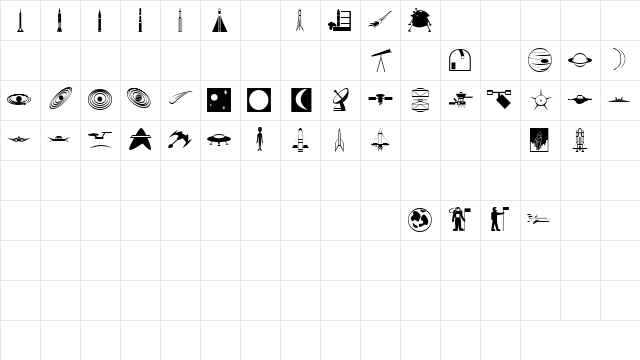
DexisDingbatsEightSSi Regular Free Font
DexisDingbatsEightSSi Regular
Design Context for DexisDingbatsEightSSi
DexisDingbatsEightSSi is a composed and adaptable typeface that performs quietly and consistently across a wide range of design contexts.